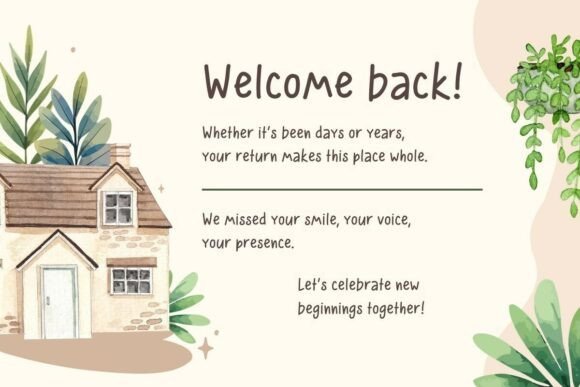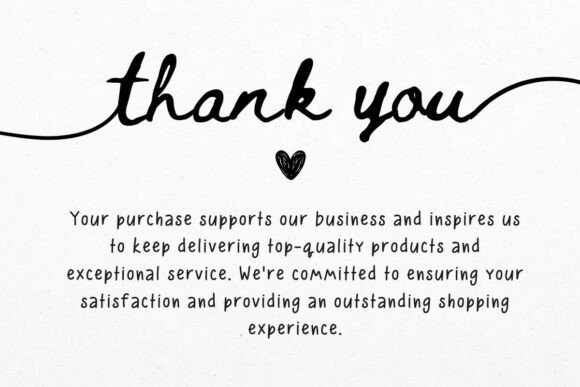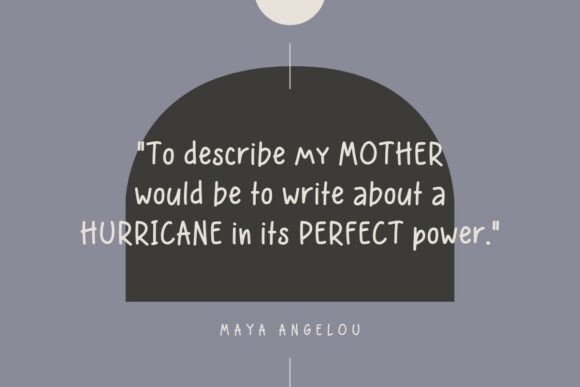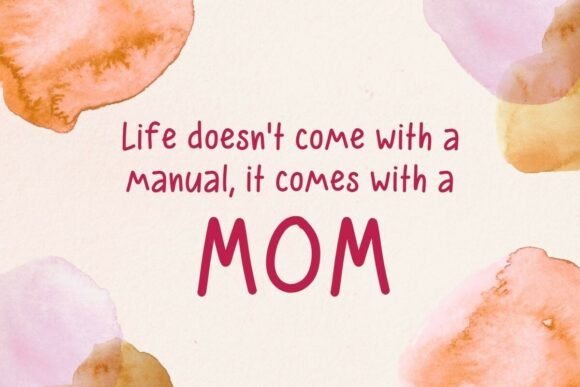
Morning Doodle Font
Morning Doodle is a playful chunky handwritten font that brings a fresh, cheerful, and energetic vibe to your creative projects. Inspired by casual morning sketches and spontaneous doodles, this font features bold rounded strokes, slightly imperfect shapes, and a lively rhythm that feels warm, friendly, and full of personality.